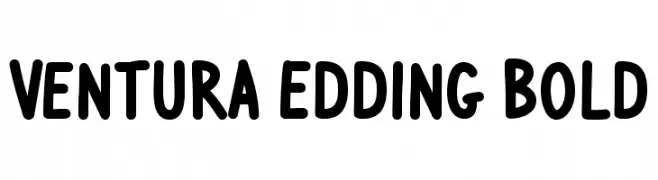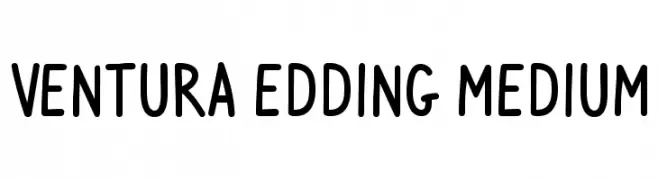
Boss Font
dcoxy
A bold, artistic font with fluid, hand-drawn strokes and playful curves.
VNI-HLThuphap Font
A dynamic, calligraphic font with bold, expressive strokes.
MyScriptFont Font
Pablo Impallari
A playful, bold script font with a handwritten, cursive style.
18th Century Kurrent Text Font
An elegant, flowing script with intricate flourishes, reminiscent of 18th-century handwriting.
Kindergarten Font
A playful, hand-drawn font with a whimsical, childlike style.
18th Century Kurrent Start Font
An elegant, high-contrast script font with ornate flourishes.
Rashi Font
A classic Hebrew script font with a calligraphic and elegant style.
Source Serif Pro Black Font
A bold serif typeface with strong, traditional character and pronounced serifs.
Ventura Edding Bold Font
A bold, rounded font with a playful and approachable style.
Ventura Edding Medium Font
A playful, handwritten-style font with rounded edges and consistent stroke width.
MaryKate Font
A playful, handwritten font with an informal and whimsical style.
Source Serif Pro Bold Font
A bold serif typeface with strong, elegant strokes and pronounced serifs.
Source Serif Pro SemiBold Font
A classic serif font with semi-bold weight and moderate contrast, ideal for formal and readable text.
Bowser Font
A bold, distressed font with a hand-drawn, grungy style.
Source Serif Pro Regular Font
A classic serif typeface with elegant strokes and balanced proportions.
Lalaland Font
dcoxy
A bold, playful handwritten font with thick, rounded characters.
HL Brush 1BK Font
A dynamic brush-style font with bold, expressive strokes and a hand-painted feel.
Singularity Font
FreshTypeINK
A playful, handwritten font with a casual and informal style.
celia Font